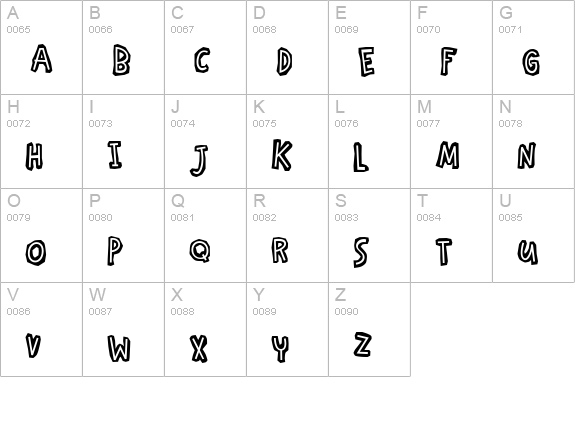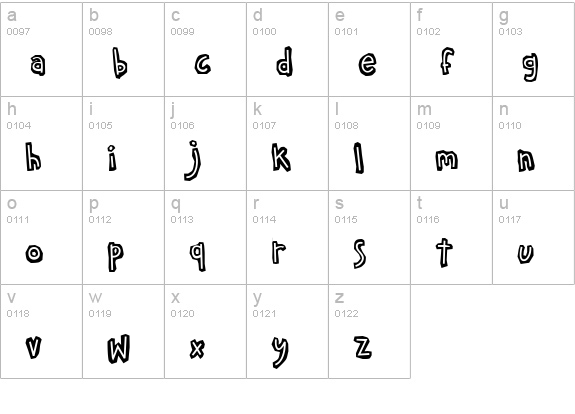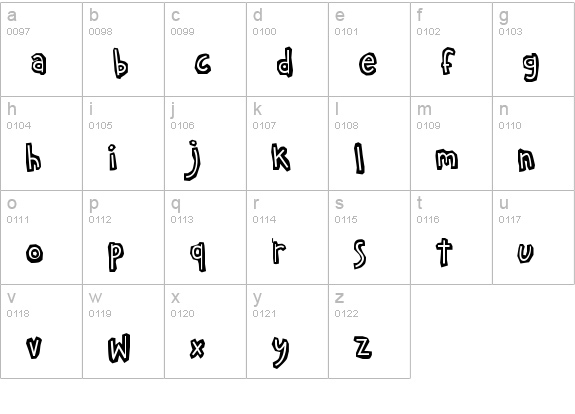
CK Stone Age Font Details
Introducing CK Stone Age font, a bold and striking typeface that exudes a rugged and primitive charm. This unique font is inspired by the ancient stone carvings of the prehistoric era, giving your designs a distinctive and powerful edge. With its rough edges and bold strokes, CK Stone Age font is perfect for adding a touch of raw strength to your projects. And the best part? CK Stone Age font is completely free to download at FontsMarket.com. That's right, you can easily access this one-of-a-kind font and use it in your designs without any cost. So go ahead and unleash the primal energy of CK Stone Age font in your next creative project!